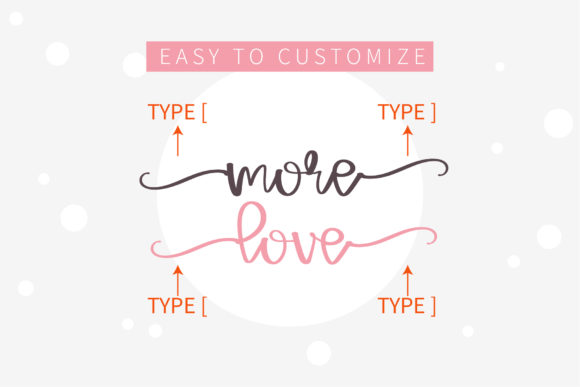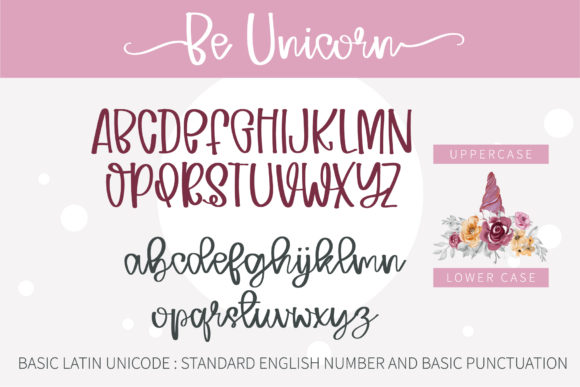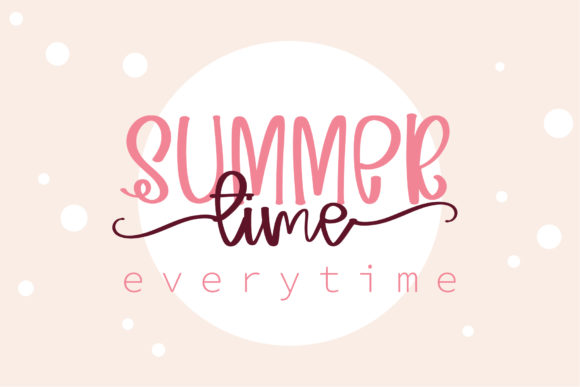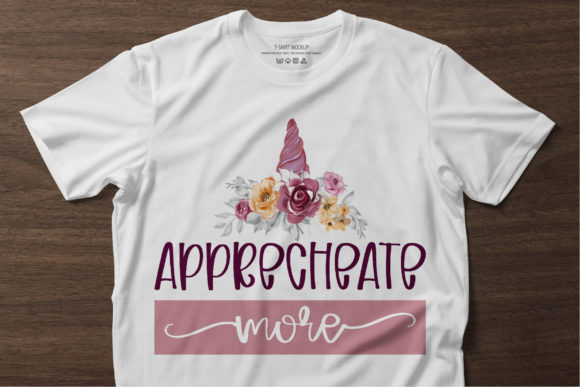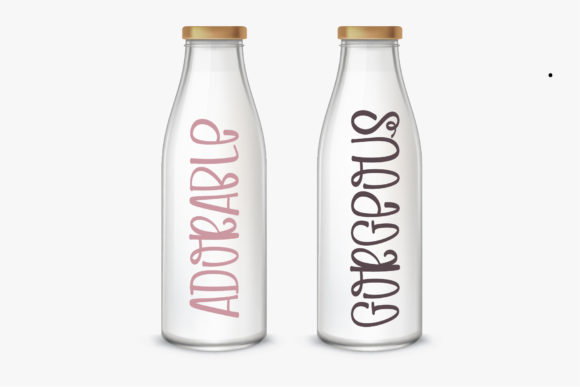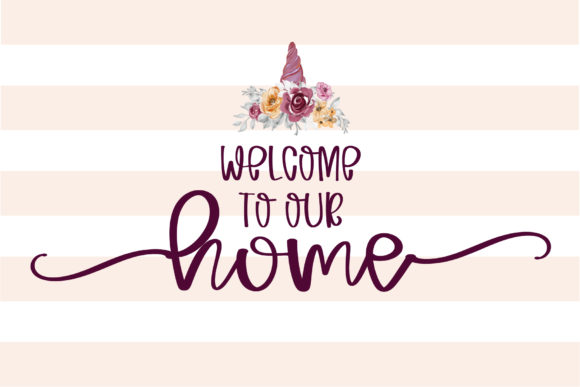
Introducing Be Unicorn Font: Add a Touch of Magic to Your Designs
Are you looking for a font that can add a dash of whimsy and romance to your design projects? Look no further than Be Unicorn Font! This beautiful and friendly handwritten font is perfect for designers and crafters who want to create charming and eye-catching designs. In this article, we’ll take a closer look at Be Unicorn Font and explore its features, uses, and benefits.
What is Be Unicorn Font?
Be Unicorn is a romantic and elegant handwritten font that is perfect for designs that require a touch of magic and wonder. Its beautiful and flowing script makes it ideal for use in a variety of design projects, from wedding invitations and greeting cards to branding and packaging. With its friendly and approachable feel, Be Unicorn Font is sure to delight your audience and leave a lasting impression.
Key Features of Be Unicorn Font
So, what makes Be Unicorn Font so special? Here are some of its key features:
- Beautiful Handwritten Script: Be Unicorn Font features a stunning handwritten script that is both elegant and playful.
- Romantic Theme: This font is perfect for designs that require a romantic and whimsical touch.
- Charming Appearance: Be Unicorn Font is designed to add a charming and eye-catching touch to your designs.
- Versatile: This font can be used in a variety of design projects, from digital designs to print materials.
Uses of Be Unicorn Font
Be Unicorn Font is a versatile font that can be used in a wide range of design projects, including:
- Wedding Invitations: Add a touch of romance and elegance to your wedding invitations with Be Unicorn Font.
- Greeting Cards: Create beautiful and heartfelt greeting cards for special occasions like birthdays, anniversaries, and holidays.
- Branding and Packaging: Use Be Unicorn Font to add a touch of whimsy and charm to your brand’s packaging and marketing materials.
- Digital Designs: This font is perfect for use in digital designs, such as social media graphics, blog posts, and email newsletters.
Benefits of Using Be Unicorn Font
So, why should you choose Be Unicorn Font for your design projects? Here are some of its benefits:
- Unique and Eye-Catching: Be Unicorn Font is a unique and eye-catching font that will help your designs stand out from the crowd.
- Easy to Read: This font is designed to be easy to read, making it perfect for use in a variety of design projects.
- Customizable: Be Unicorn Font can be customized to fit your design needs, making it a versatile font for a wide range of projects.
- Time-Saving: With Be Unicorn Font, you can save time and effort in creating beautiful and charming designs.
Tips for Using Be Unicorn Font
Here are some tips for using Be Unicorn Font in your design projects:
- Pair it with Other Fonts: Be Unicorn Font can be paired with other fonts to create a unique and eye-catching design.
- Use it in Headlines and Titles: This font is perfect for use in headlines and titles, where its elegant and playful script can shine.
- Experiment with Colors: Be Unicorn Font looks great in a variety of colors, so don’t be afraid to experiment and find the perfect color for your design.
Be Unicorn Font is a beautiful and friendly handwritten font that is perfect for designers and crafters who want to add a touch of magic and romance to their design projects. With its elegant and playful script, charming appearance, and versatility, this font is sure to delight your audience and leave a lasting impression. Whether you’re designing wedding invitations, greeting cards, or branding materials, Be Unicorn Font is a great choice. So why not give it a try and see the magic it can bring to your designs?